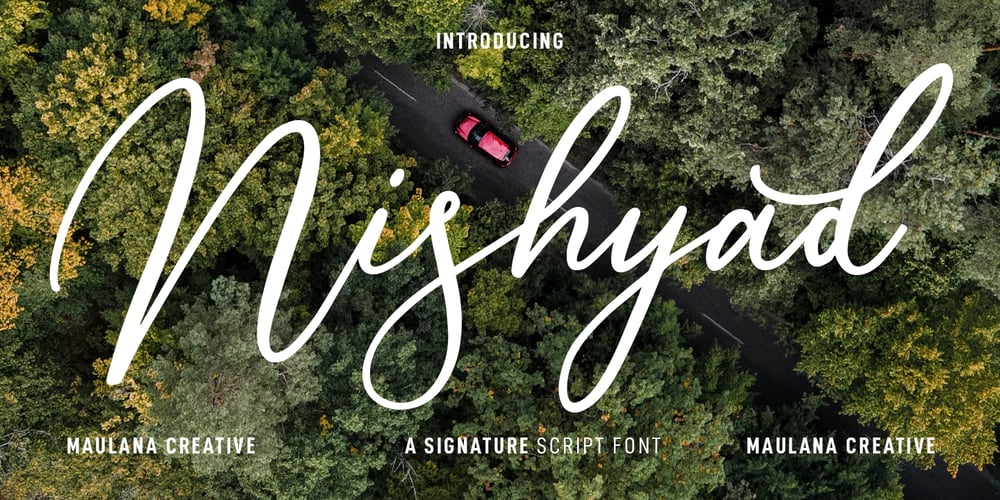
Nishyad Font Family was designed by Gilang Maulana and published by Maulana Creative. Nishyad contains 1 styles and family package options. Nisyhad is an unique signature script font. With regular contrast stroke, fun character with a bit of ligatures and alternates. To give you an extra creative work. Nisyhad font support multilingual more than 100+ language. This font is good for logo design, Social media, Movie Titles, Books Titles, a short text even a long text letter and good for your secondary text font with sans or serif. Make a stunning work with Nisyhad font. Cheers, MaulanaCreative